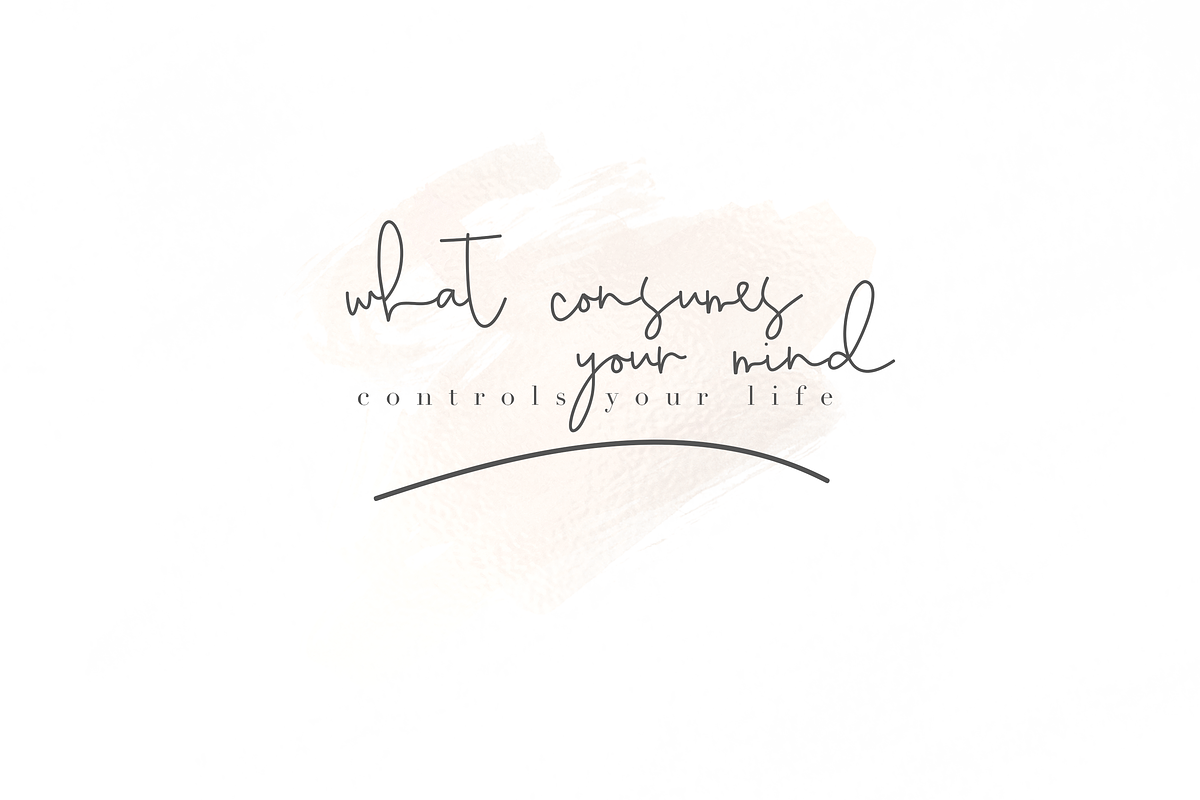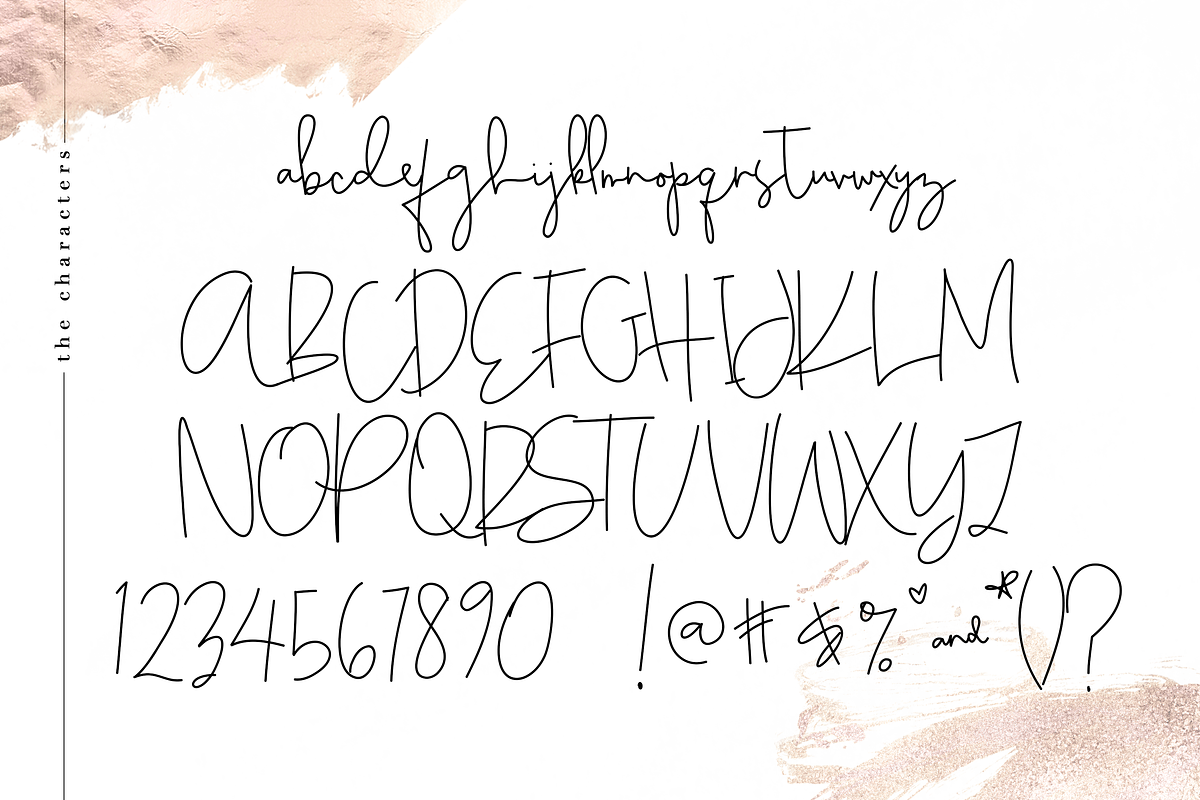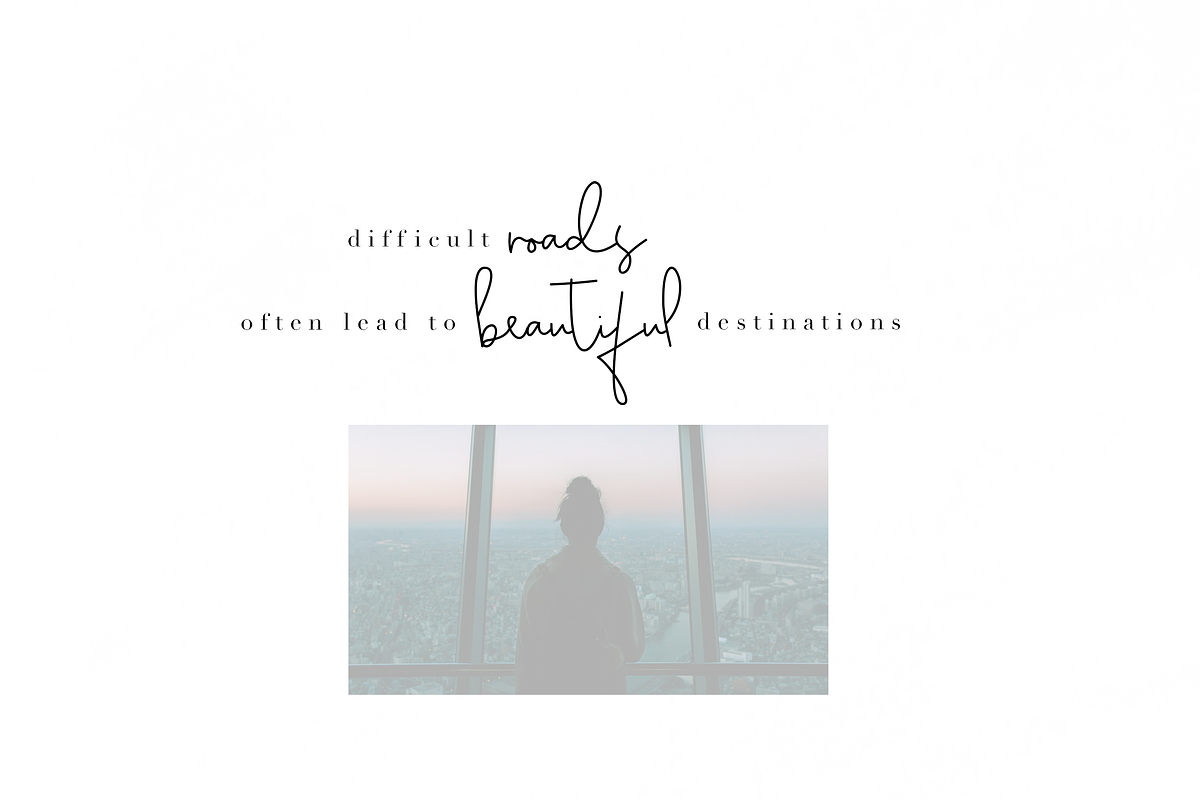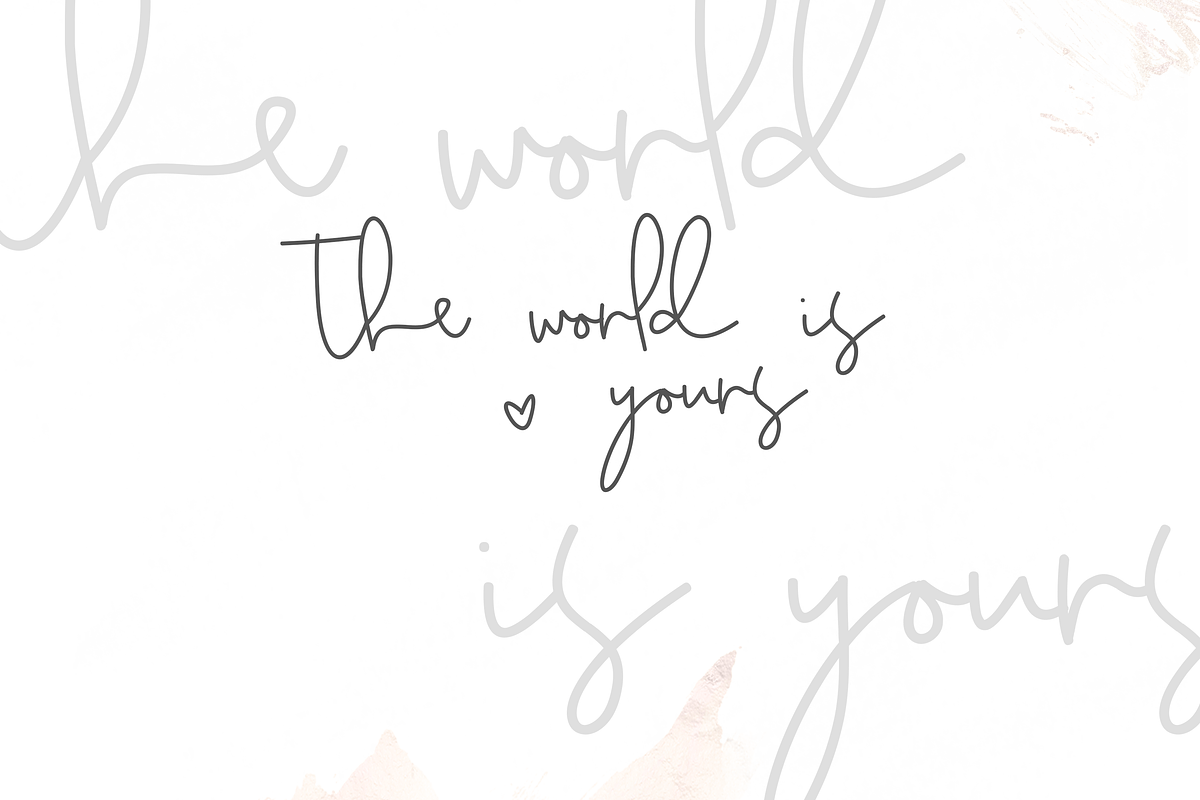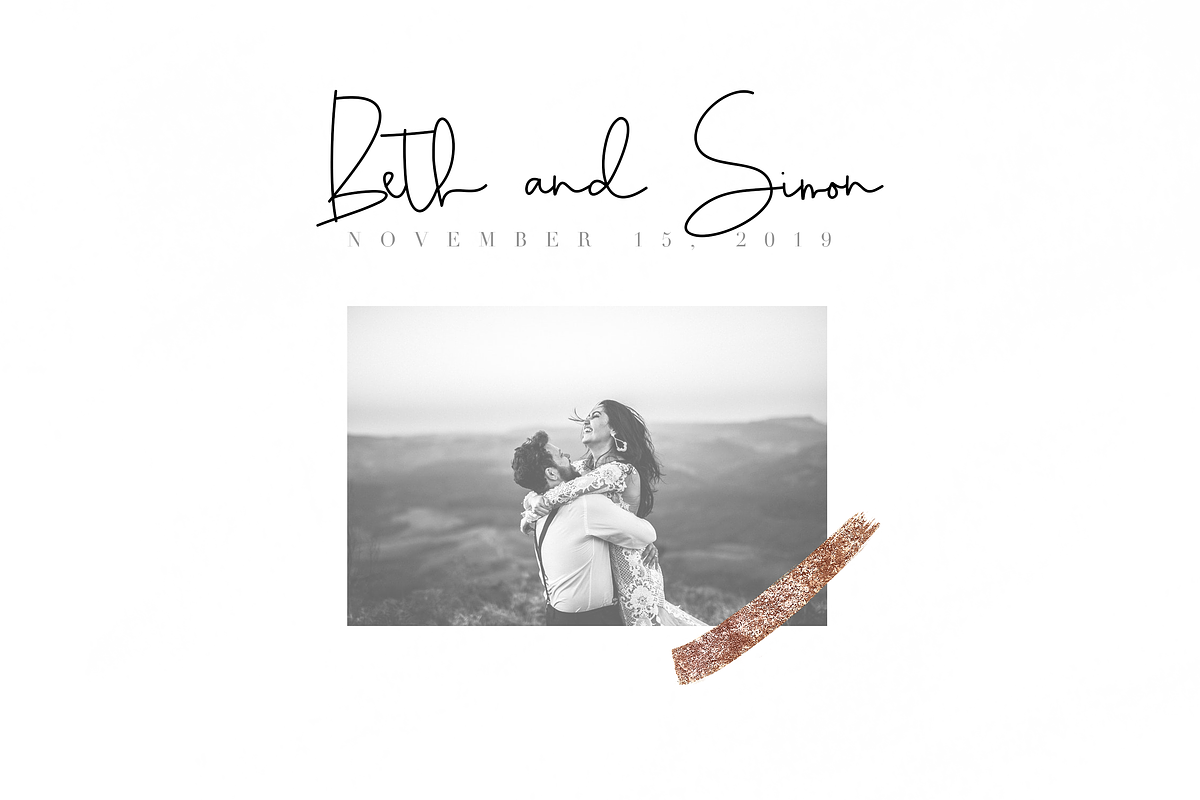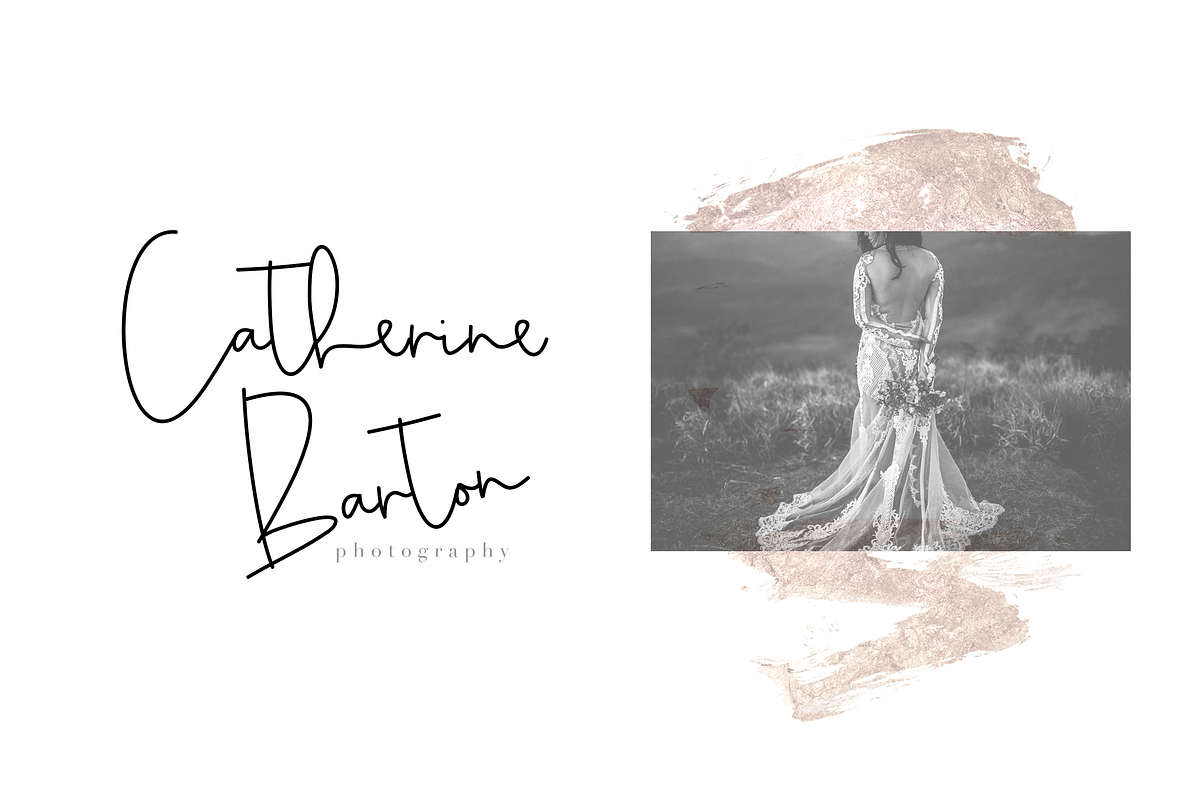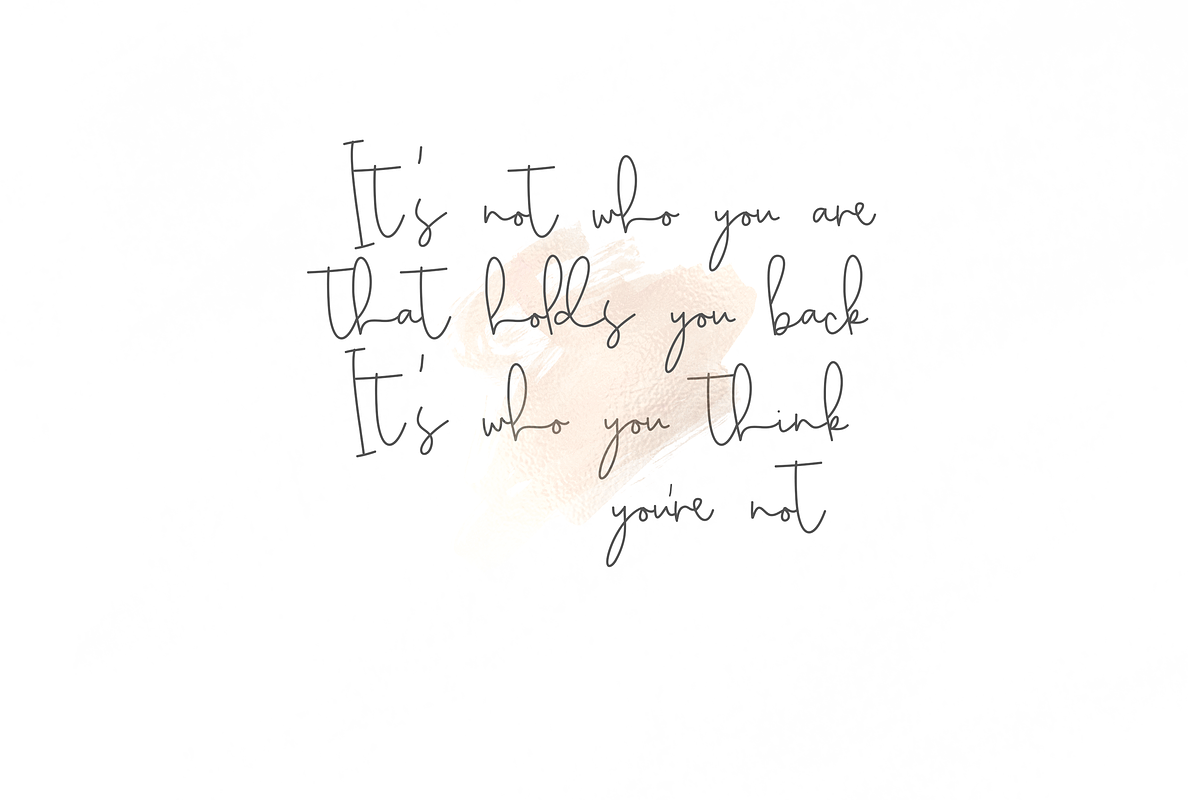
Chic - Handwritten Script Font
Chicis a classy handwritten script font.
It is perfect for quotes, headings, blogs, logos, brandings, invitations and more!
Chic - Handwritten Script Font by KA Designs fits naturally into Branding, posters, packaging, typography.